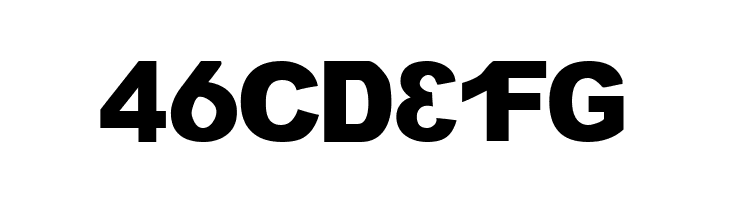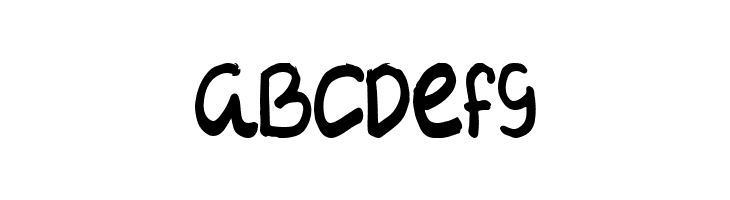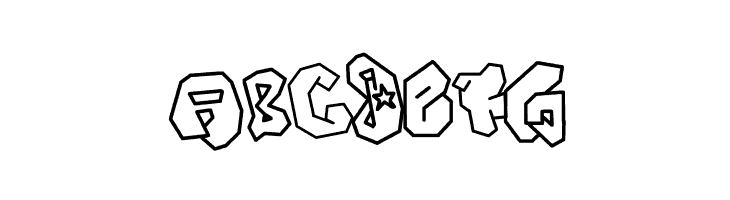
Digital-7 Font
A digital-style font resembling seven-segment displays, ideal for tech-themed designs.
Coverface SE Font
A rounded, bold font with a playful yet professional style.
Digital-7 Mono Font
A digital, seven-segment display style font with a retro-futuristic look.
HereaboutsBold Font
A bold, modern font with rounded, geometric characters.
Digital-7 Italic Font
A digital-style, italic font mimicking seven-segment displays with a modern, tech-inspired look.
Coverface SE Light Font
A bold, rounded font with smooth curves and uniform strokes.
ScrambleMixed Font
A bold, modern font with clean lines and balanced spacing.
JOKER-SIZE Font
A bold, graffiti-inspired font with jagged, angular letterforms.
H4XX0R 1337 5CR1P7 Font
A bold, futuristic font with sharp angles and a cyberpunk aesthetic.
SandyLite-Regular Font
A dynamic and expressive script font with fluid, handwritten letterforms.
Sacha_Sharpie_2 Font
A bold, playful handwritten font with rounded, consistent strokes.
Scramble Font
A playful, Scrabble tile-inspired font with bold uppercase letters in square tiles.
Coverface Light SE Font
A bold, rounded font with smooth curves and a modern, friendly appearance.
aqua teen hunger font c adult swim Font
A novelty font featuring cartoon character illustrations as glyphs.
code xero Font
A futuristic, barcode-inspired font with a digital and modern aesthetic.
Digital-7 MonoItalic Font
A monospaced, digital-inspired font with an italic slant, resembling seven-segment displays.
Odisean SC Font
A modern, geometric font with clean lines and uniform width.
Asciid Font
A geometric, ASCII art-inspired decorative font with sharp, angular shapes.
Odisean One Font
A bold, geometric font with a modern, industrial style and playful special characters.
PostIndexHand1 Font
A playful, hand-drawn font with bold outlines and geometric shapes.
SketchLogs Font